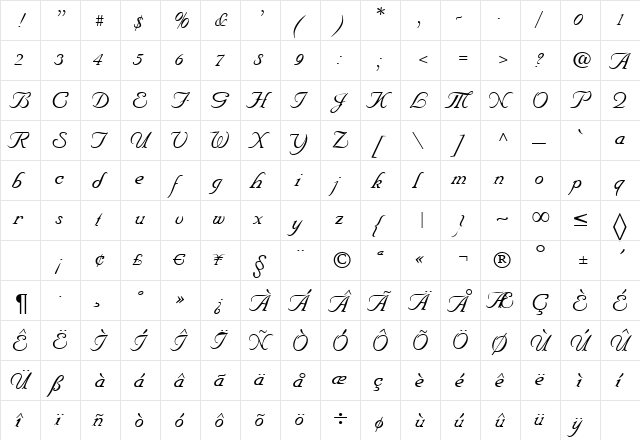
Script-N690 Regular Font Preview
Script-N690 Regular
Script-N690 Regular Font Details
Design Context for Script-N690 Typeface
Script-N690 brings a calligraphic fluidity to the page — its connecting strokes and expressive curves give it an unmistakably human quality.